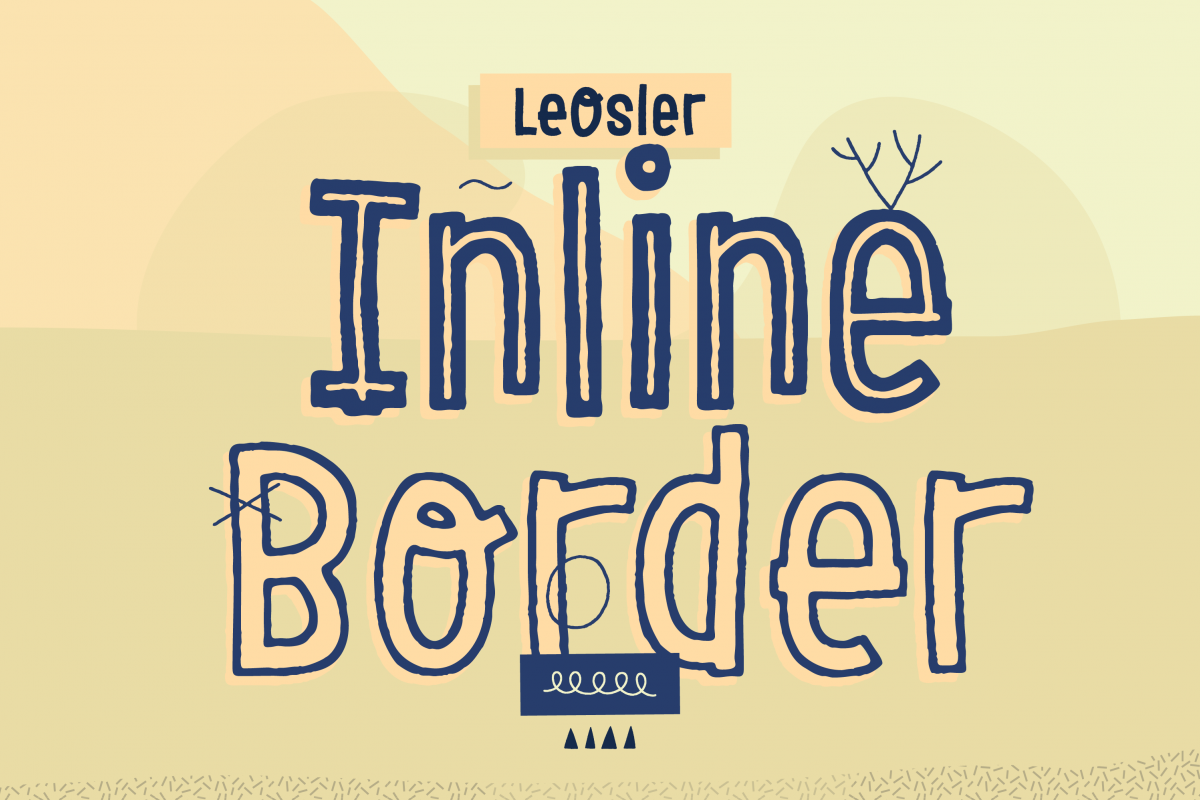
LeOsler Inline & Border
LeOsler is a decorative, fun, handwritten font which can be used in a wide range of languages, including English, Spanish, Italian, French, German, Polish, Czech, Vietnamese, Russian, Greek, among many others.
Its OpenType features include ligatures, contextual and stylistic alternates, scientific superior/inferior figures, fractions, etc.